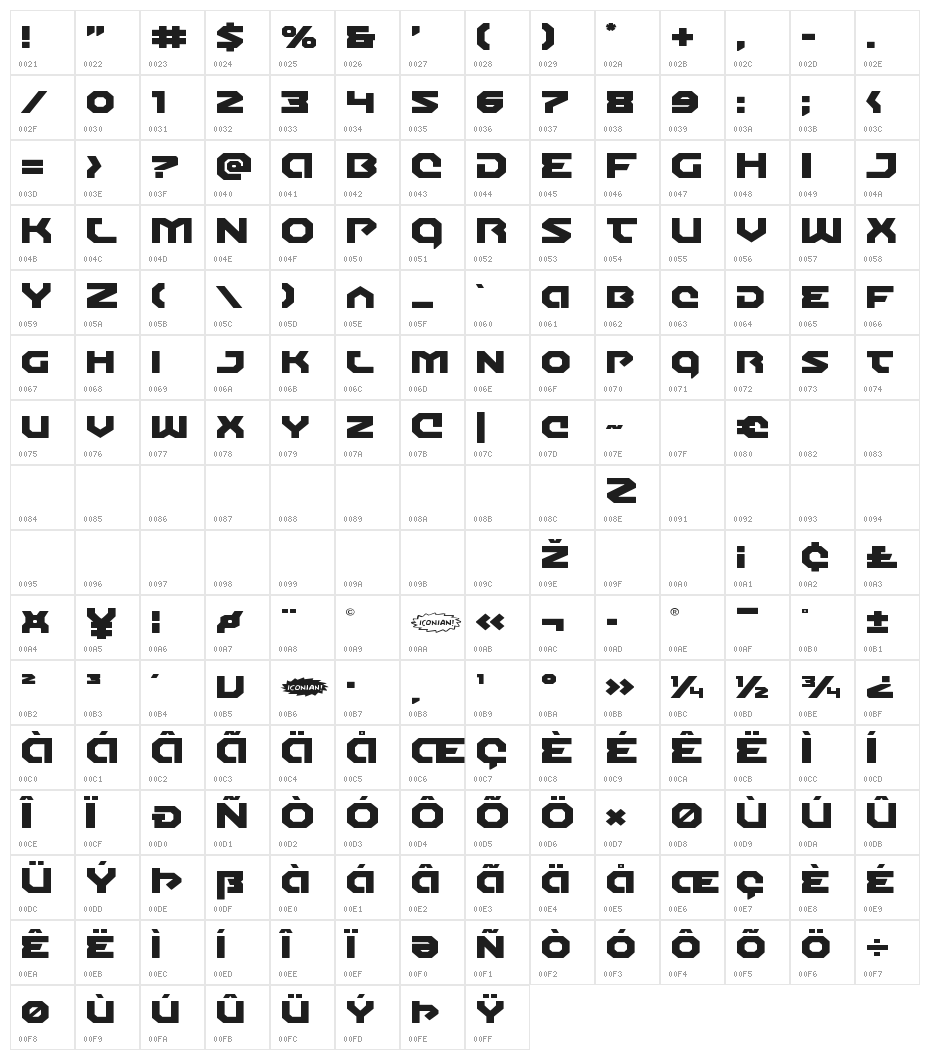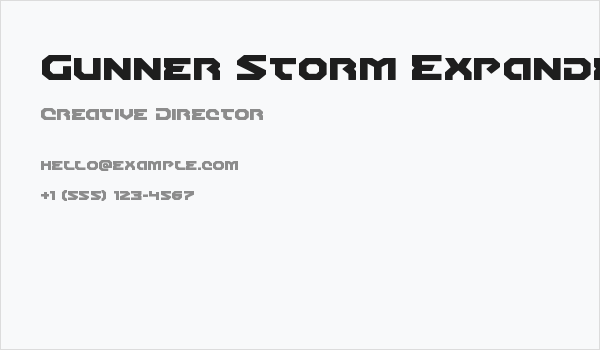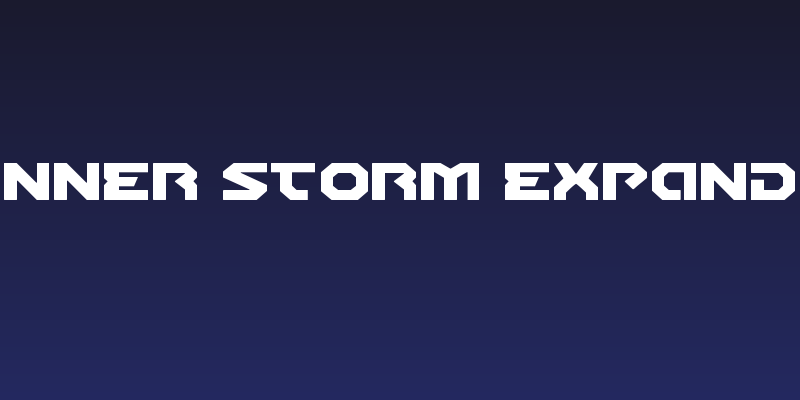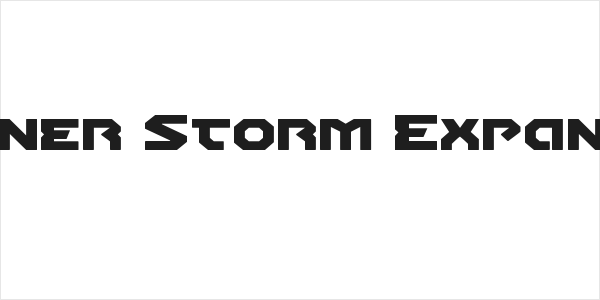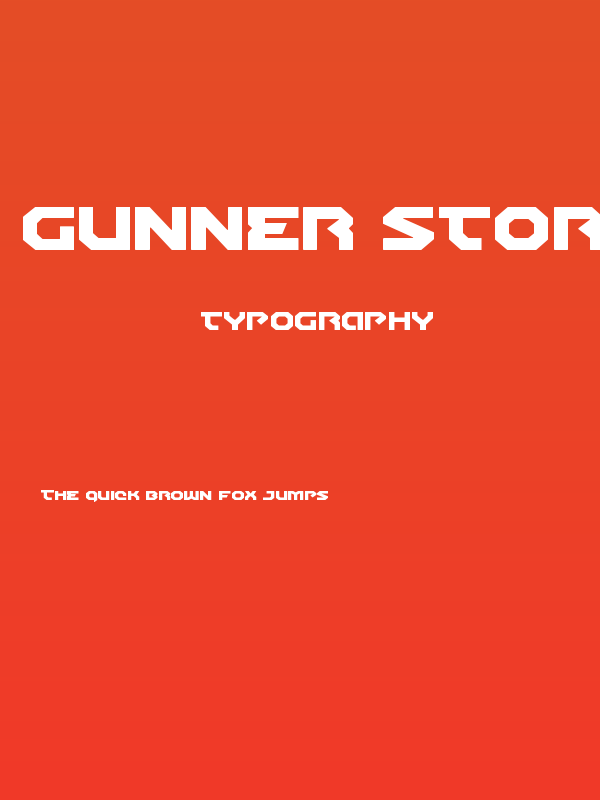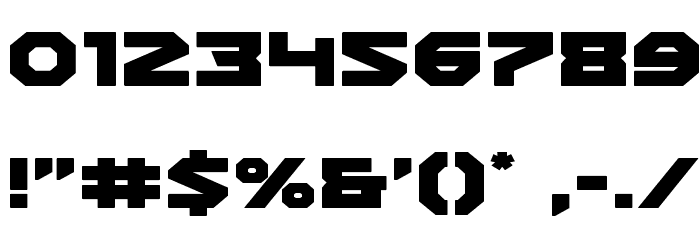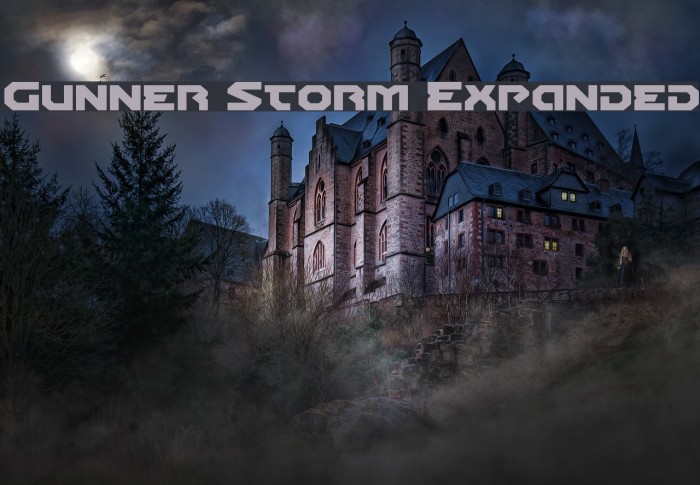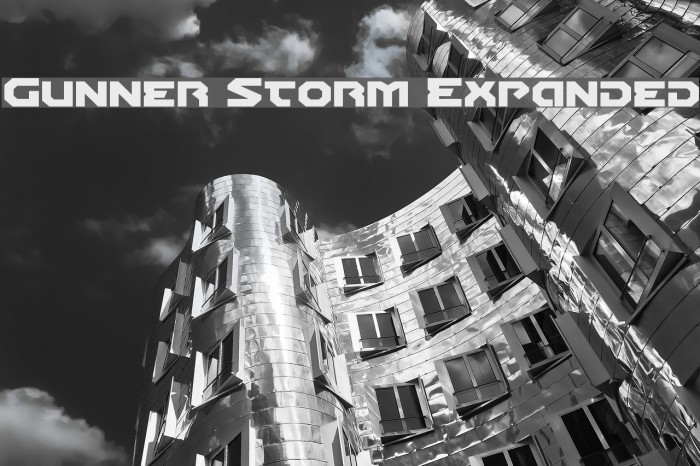
Gunner Storm Expanded Font
Gunner Storm Expanded Description
This font features a bold, geometric design with sharp angles and a futuristic aesthetic. The characters are constructed with a blocky, angular style that gives a sense of strength and modernity. The uppercase and lowercase letters maintain a consistent width, creating a uniform appearance. Numbers and special characters follow the same design principles, ensuring cohesion across all elements. The font's expanded width allows for a commanding presence, making it suitable for impactful headlines and titles. Its distinct style is reminiscent of sci-fi and tech themes, making it ideal for projects that require a modern and edgy look.
| Proposed Projects | Ideal for sci-fi themed posters, tech branding, video game titles, and futuristic design projects. |